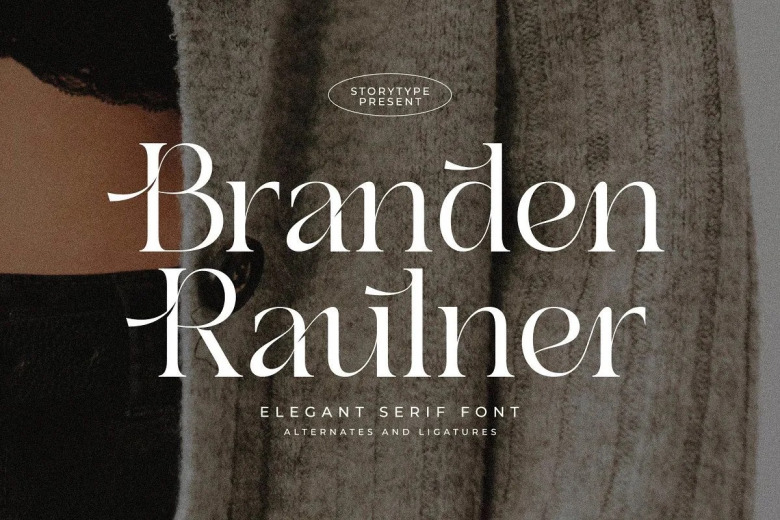
Branden Raulner Font
Branden Raulner – stylish and interesting serif font. It boasts smooth curves and is ideal for fashion branding or editorial design. Use it for your designs and see the wealth of possibilities open to you.
Branden Raulner Serif Font